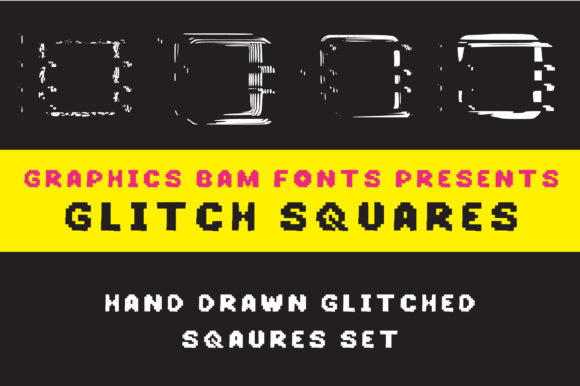
Introducing Glitch Squares Font: Add a Distorted and Trendy Touch to Your Designs
In the world of typography, fonts play a crucial role in conveying the tone and aesthetic of a design. With the ever-evolving landscape of digital design, it’s essential to stay ahead of the curve with unique and eye-catching fonts. One such font that has gained popularity among designers is the Glitch Squares Font. In this article, we’ll delve into the world of Glitch Squares, exploring its features, uses, and benefits.
What is Glitch Squares Font?
Glitch Squares Font is a cool, uniquely shaped, pixelated dingbats font that adds a distorted and trendy touch to designs. This unusual font is perfect for designers looking to create visually striking and Instagram-worthy content. The font’s pixelated design gives it a retro feel, reminiscent of old-school video games and computer graphics.
Key Features of Glitch Squares Font
- Unique Pixelated Design: Glitch Squares Font boasts a distinctive pixelated design that sets it apart from other fonts.
- Distorted and Trendy: The font’s distorted shape gives it a trendy and modern feel, perfect for designs that require a bold statement.
- Dingbats Font: Glitch Squares Font is a dingbats font, which means it’s comprised of symbols and shapes rather than traditional letters.
- Easy to Use: Despite its unique design, Glitch Squares Font is easy to use and can be integrated into various design software.
Uses of Glitch Squares Font
Glitch Squares Font is versatile and can be used in various design projects, including:
- Social Media Graphics: Add a touch of personality to your social media graphics with Glitch Squares Font.
- Branding and Logo Design: Use Glitch Squares Font to create unique and memorable logos that stand out.
- Web Design: Incorporate Glitch Squares Font into your web design to add visual interest and create a trendy atmosphere.
- Print Design: Glitch Squares Font can also be used in print design, such as brochures, flyers, and posters.
Benefits of Using Glitch Squares Font
So, why should you use Glitch Squares Font in your designs? Here are some benefits:
- Stand Out from the Crowd: Glitch Squares Font is a unique and eye-catching font that will help your designs stand out.
- Convey a Trendy and Modern Aesthetic: The font’s distorted and pixelated design gives it a trendy and modern feel.
- Easy to Integrate: Glitch Squares Font is easy to use and can be integrated into various design software.
- Versatile: The font can be used in various design projects, from social media graphics to branding and logo design.
Tips for Using Glitch Squares Font
To get the most out of Glitch Squares Font, here are some tips:
- Use it Sparingly: Due to its bold and eye-catching design, it’s best to use Glitch Squares Font sparingly to avoid overwhelming the design.
- Pair it with Other Fonts: Pair Glitch Squares Font with other fonts to create visual interest and add depth to your design.
- Experiment with Colors: Glitch Squares Font looks great in bold and bright colors, so don’t be afraid to experiment.
Glitch Squares Font is a unique and eye-catching font that adds a distorted and trendy touch to designs. With its pixelated design and versatility, it’s perfect for designers looking to create visually striking content. Whether you’re designing social media graphics, logos, or websites, Glitch Squares Font is sure to make a statement.